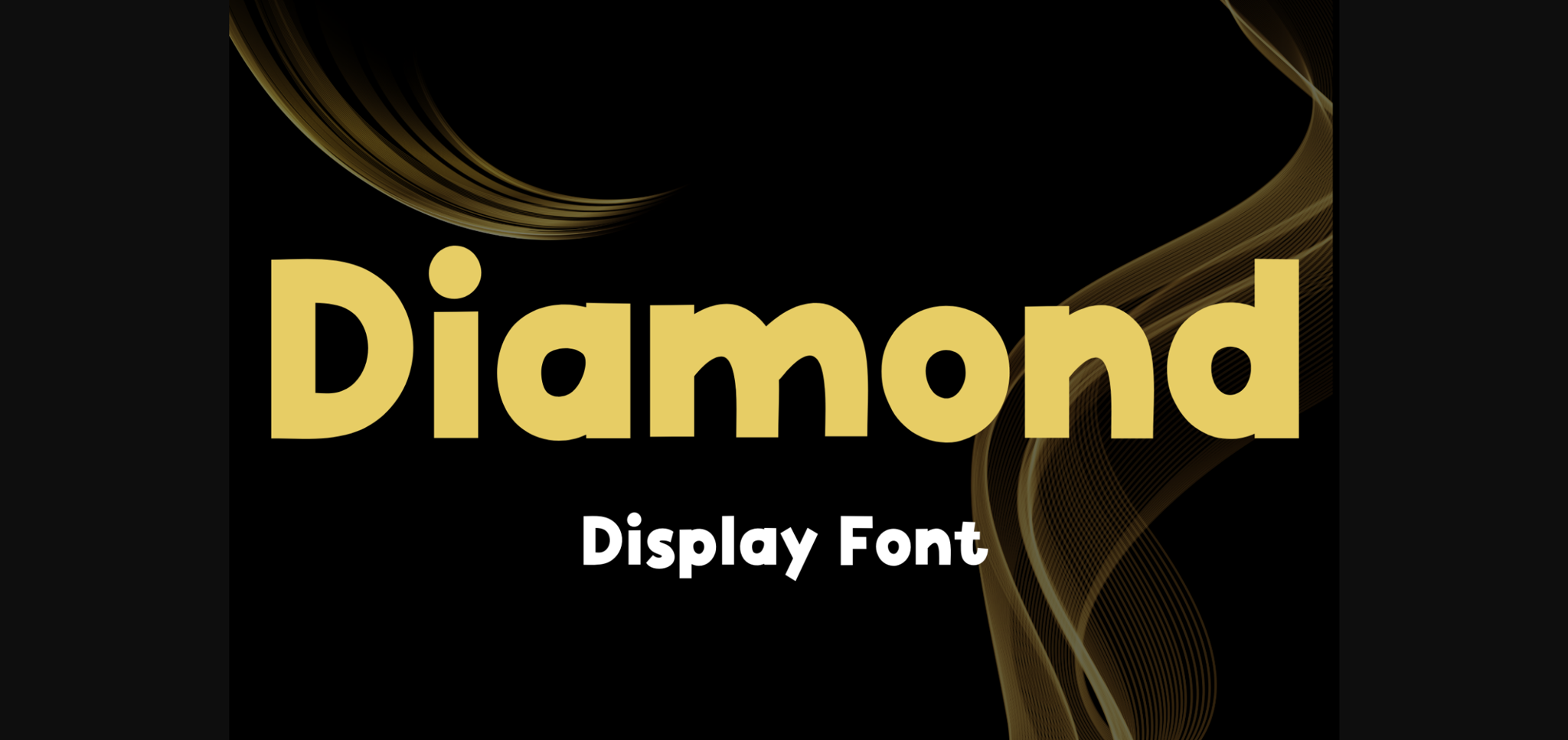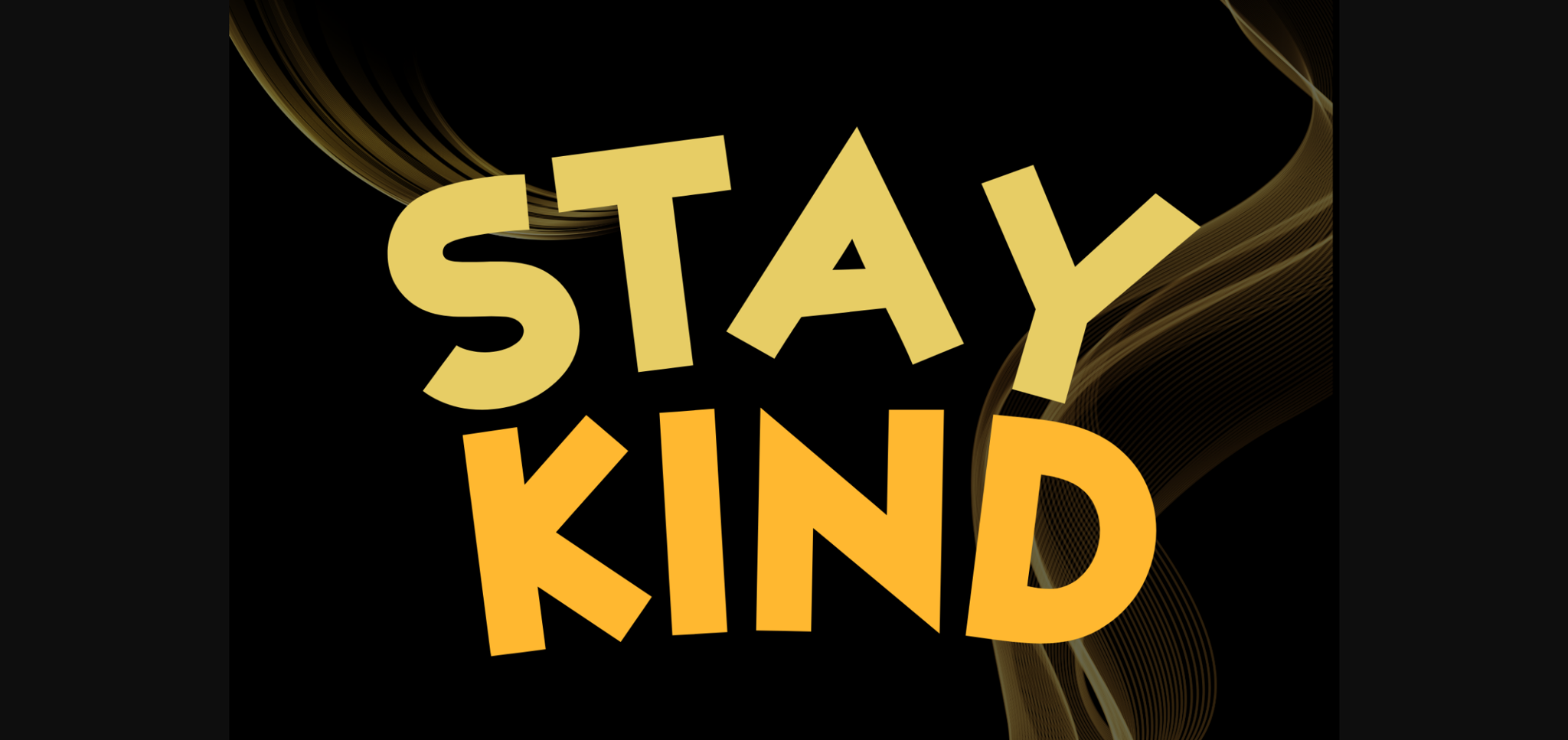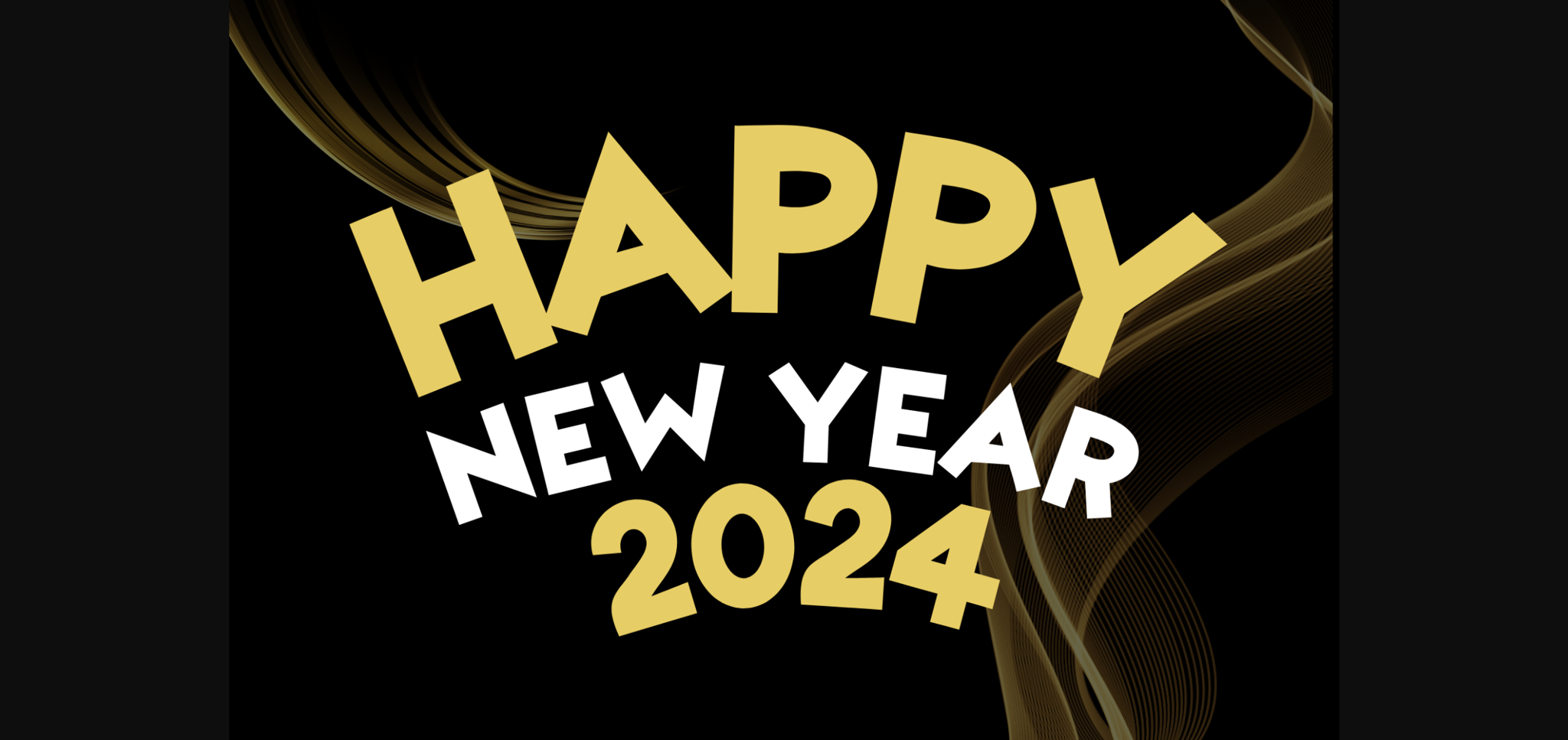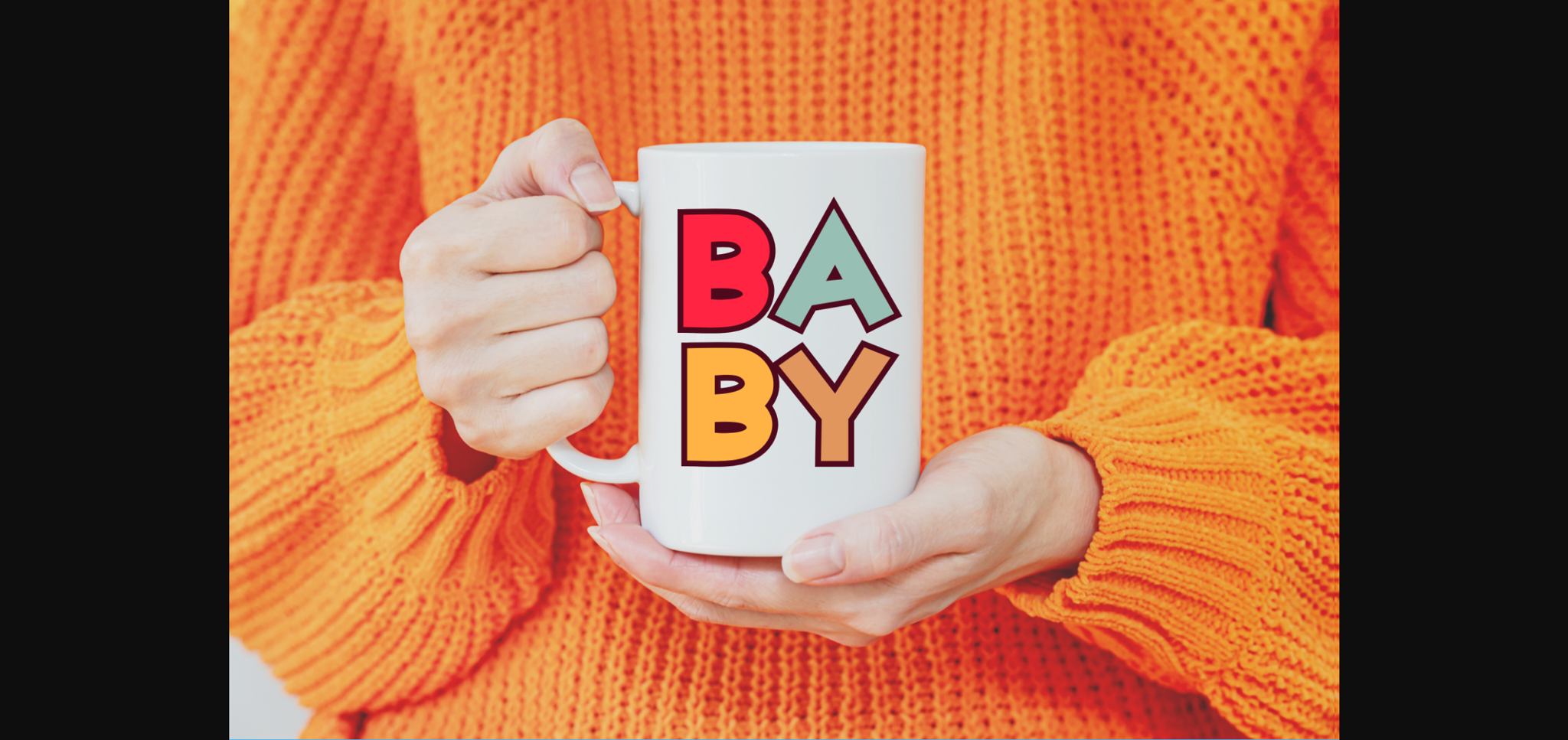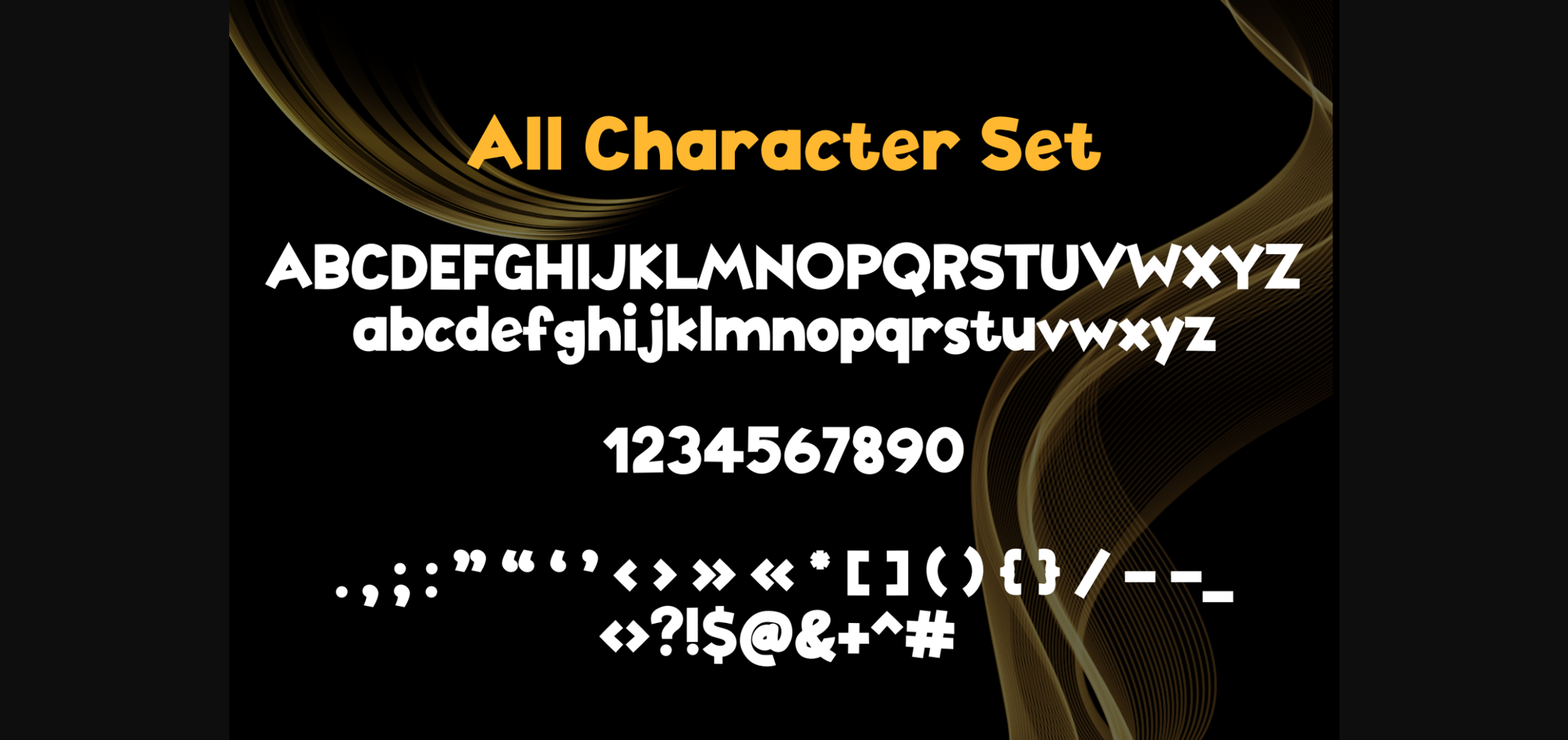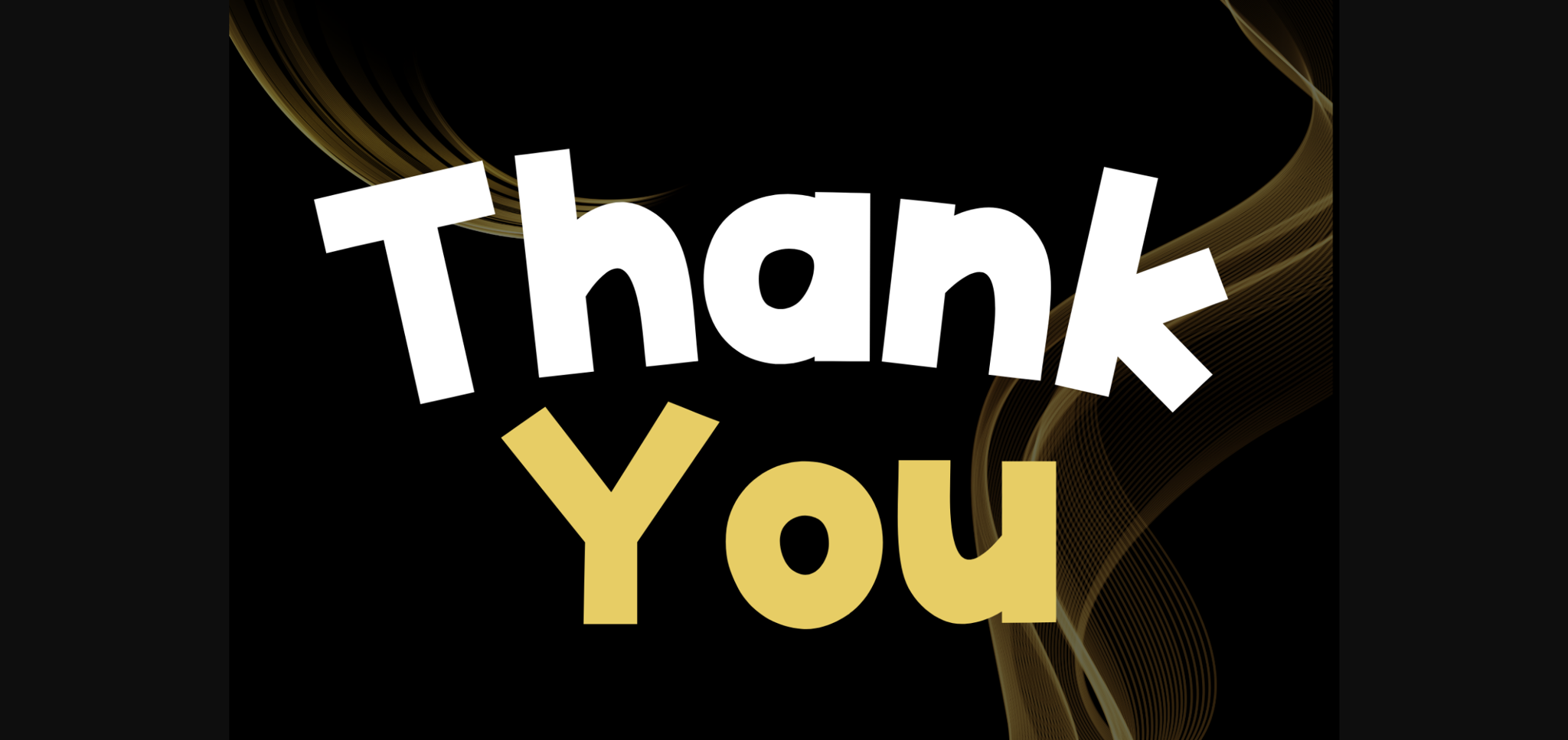
Diamond Font
About Diamond Font
Diamond is a fun sans serif font. It embodies playfulness and authenticity and is the perfect choice for all your favorite projects, or even for blog posts, logos, branding, ads, invitations, greeting cards, planners, photo albums, decorations, and much more. Add it to any of your designs, and enjoy the results!